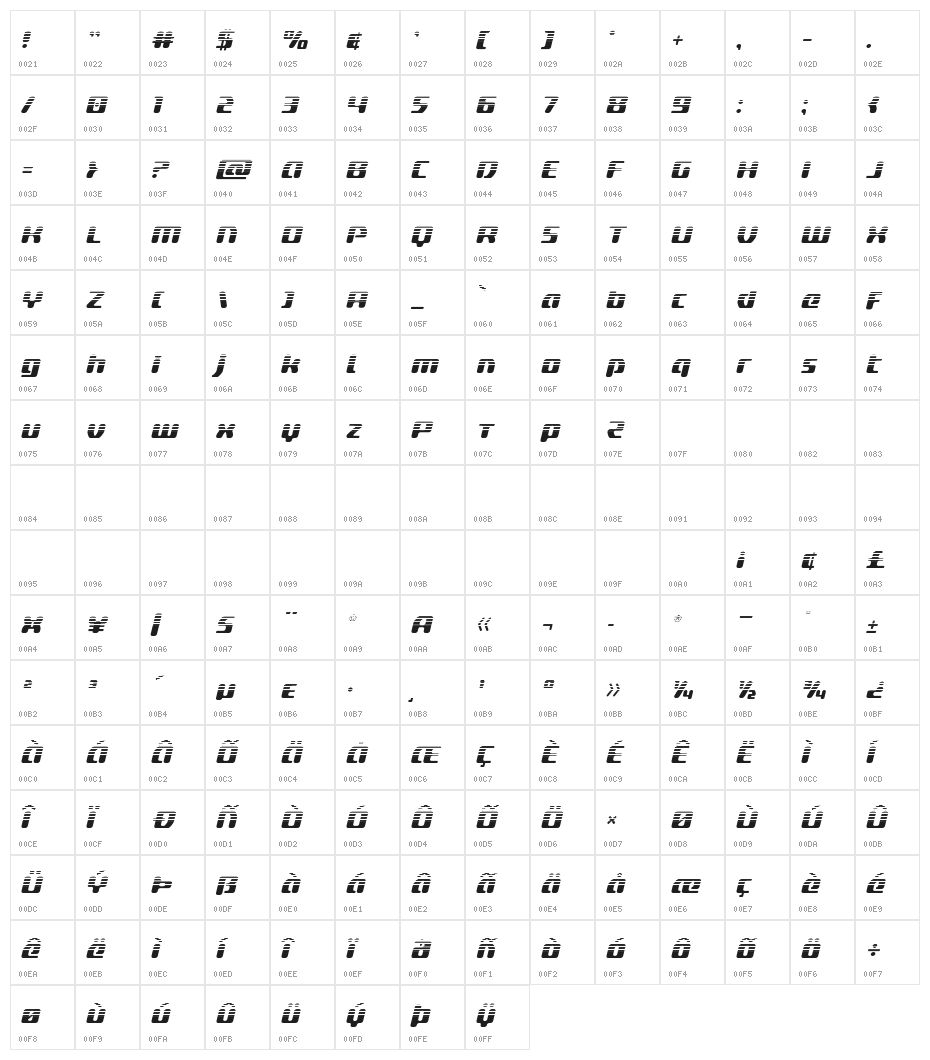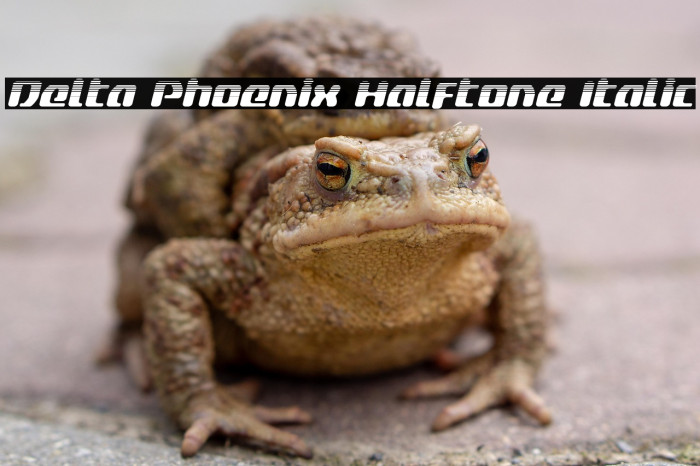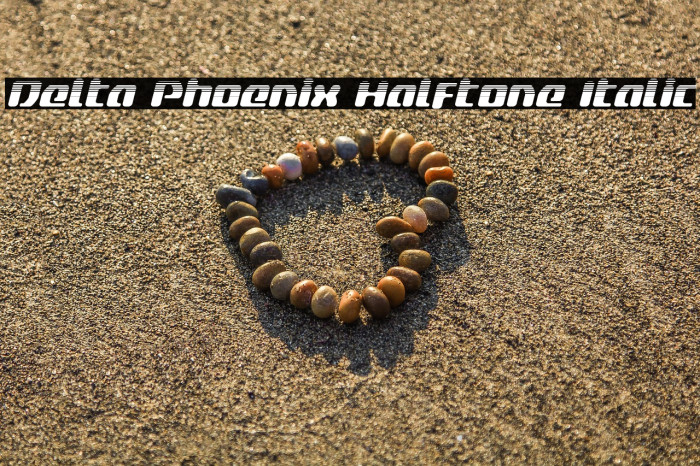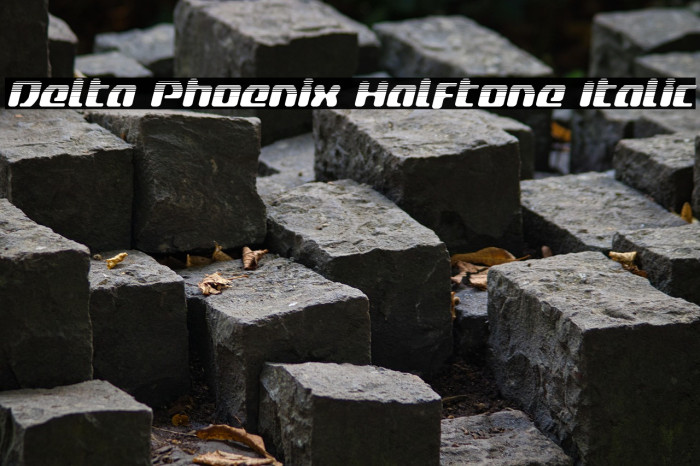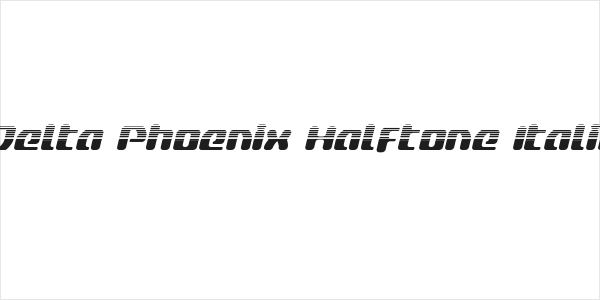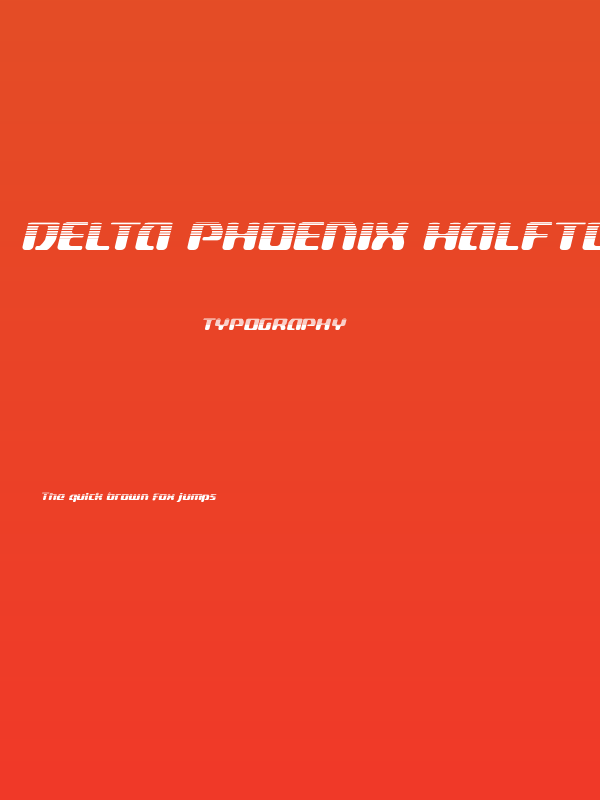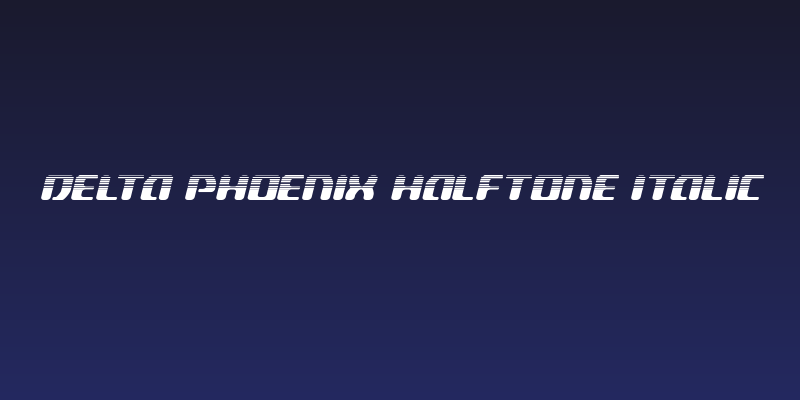
Delta Phoenix Halftone Italic Font
Delta Phoenix Halftone Italic Description
This font features a bold, italicized style with a unique halftone effect that creates a sense of motion and energy. The characters are designed with horizontal lines that give a dynamic, futuristic appearance, making it stand out in any design. The uppercase and lowercase letters maintain a consistent style, with rounded edges and a slightly condensed form. Numbers and special characters are included, following the same design principles, ensuring uniformity across all elements. This font is ideal for projects that require a modern and edgy look.
| Overall Style | Futuristic, Dynamic |
| Proposed Projects | Ideal for sci-fi themed designs, tech branding, video game titles, and modern advertising. |